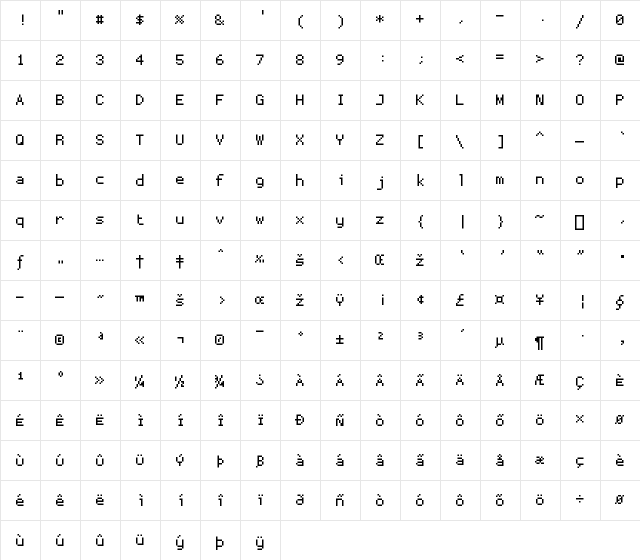
ProggyTinyTTSZ Regular
Design Context for ProggyTinyTTSZ Typeface
ProggyTinyTTSZ takes a measured approach to typography — its balanced proportions and neutral character make it a reliable workhorse for both digital and print work.
Pro Tip: Use ProggyTinyTTSZ in both headline and body roles to test its range before committing to a single application.